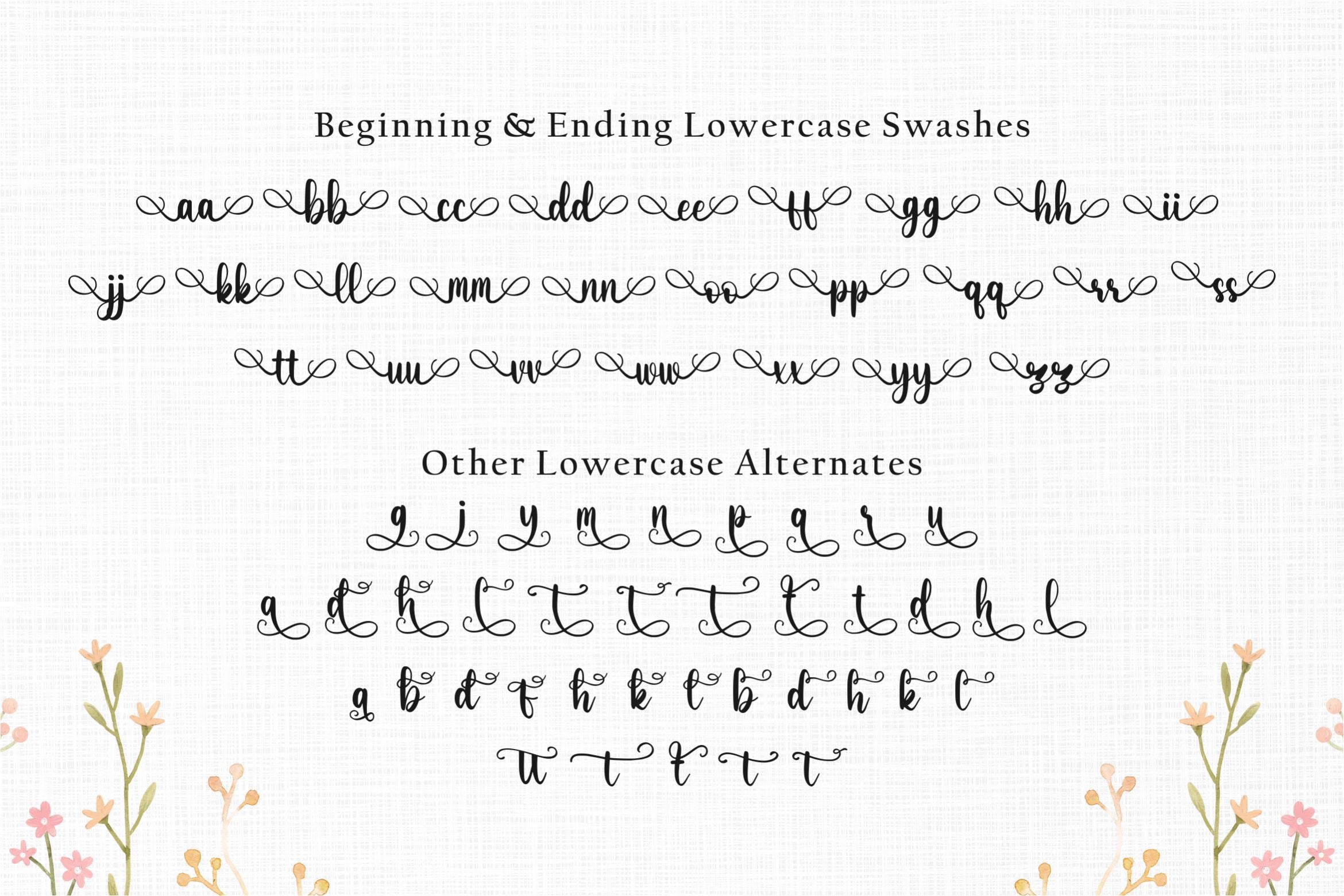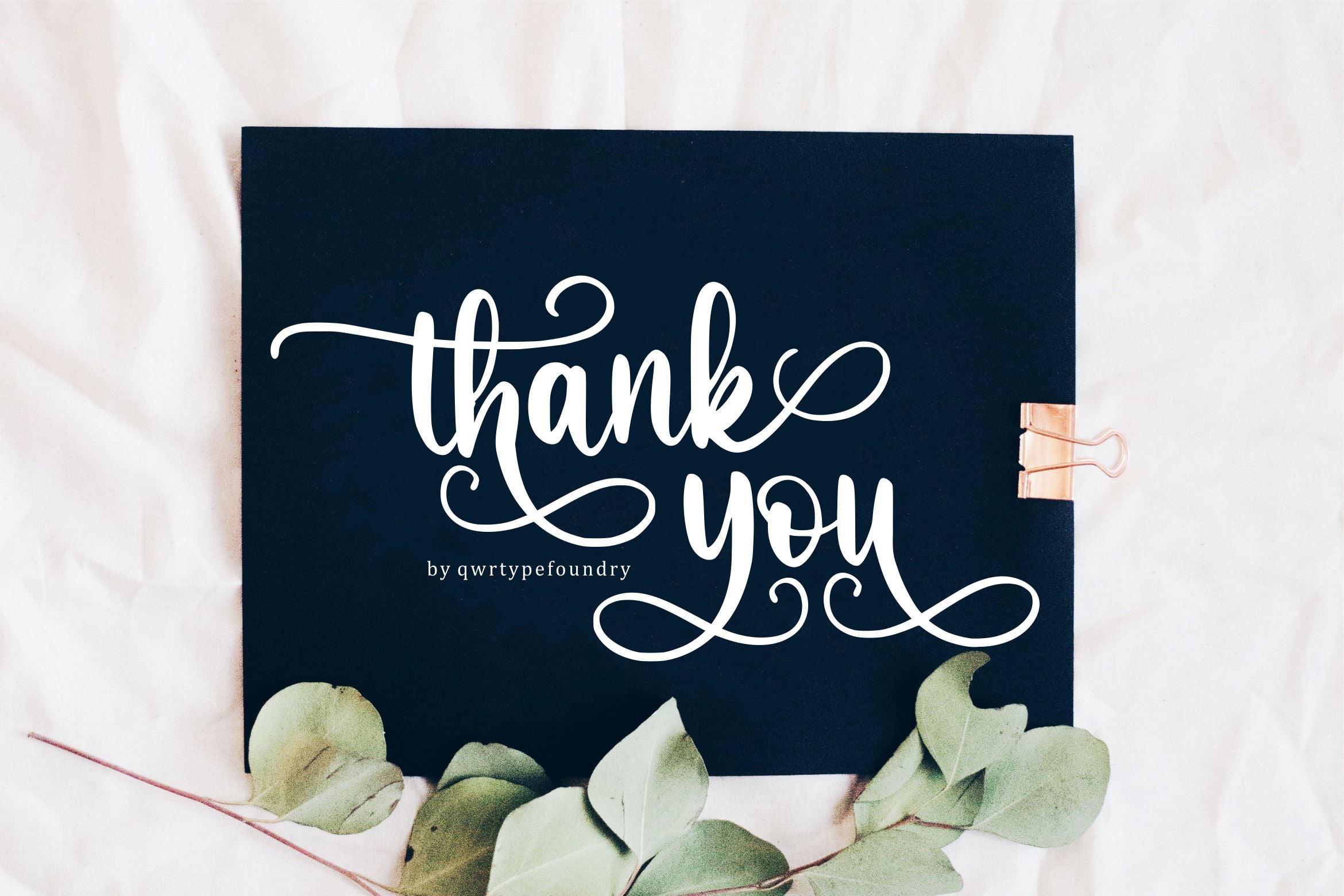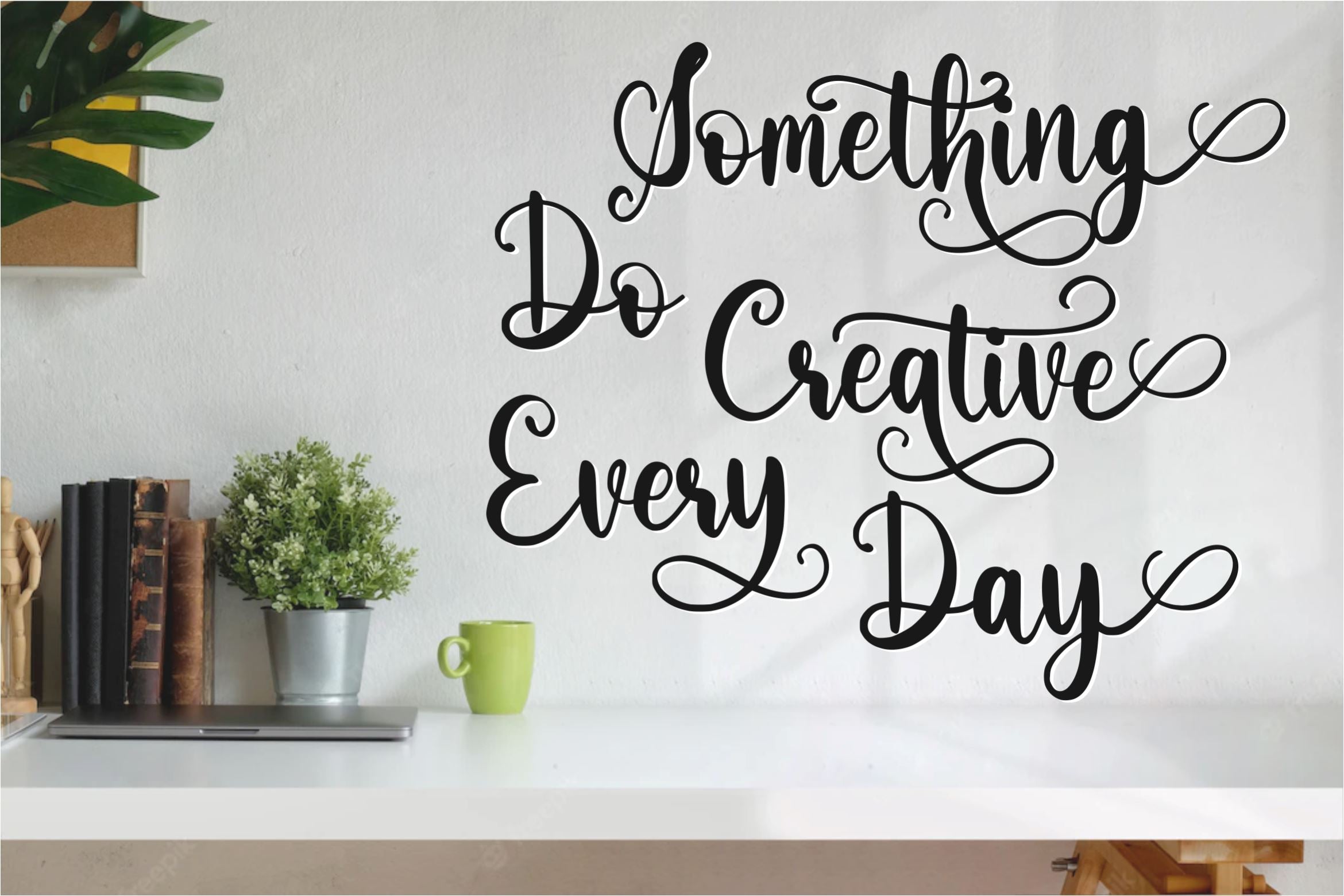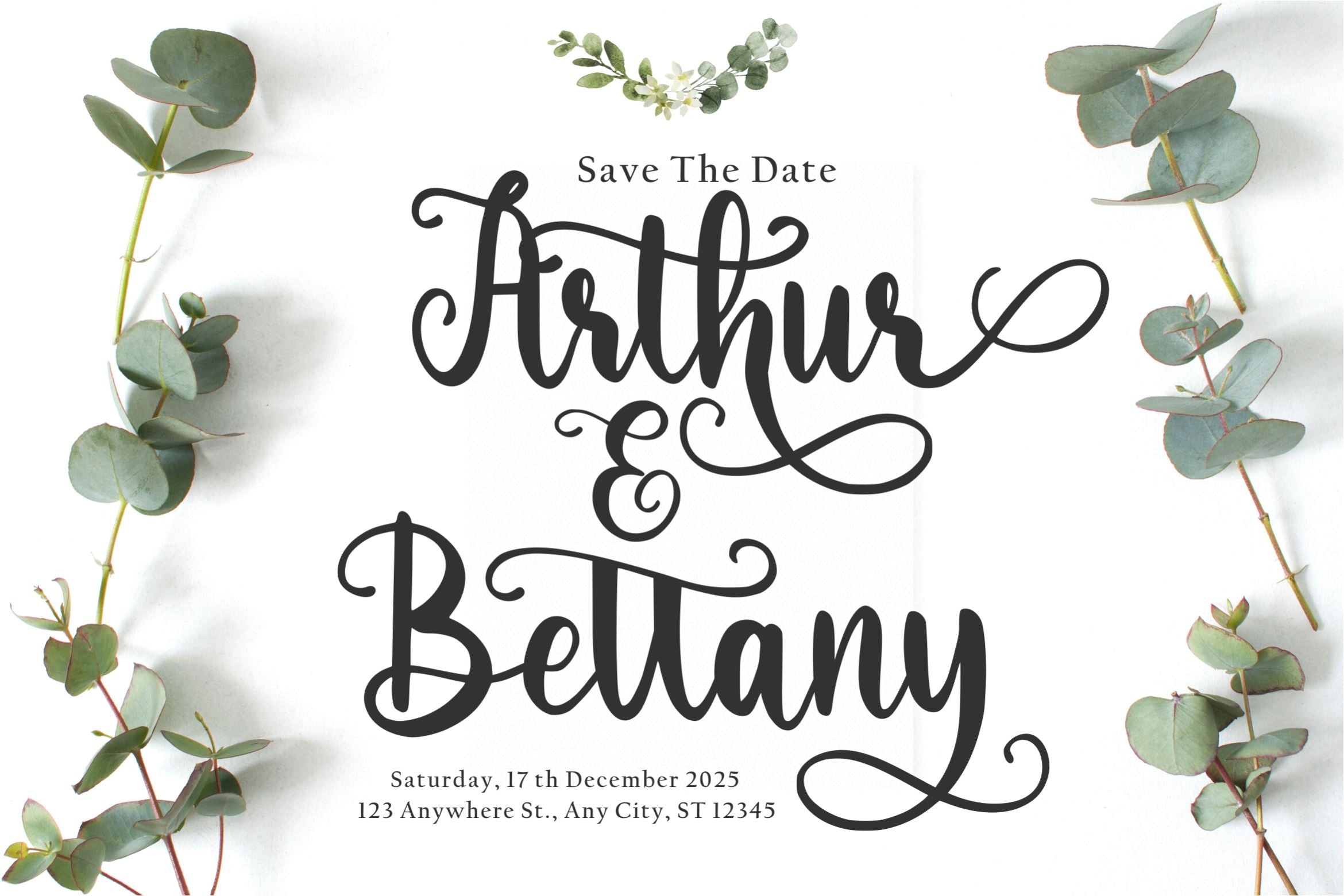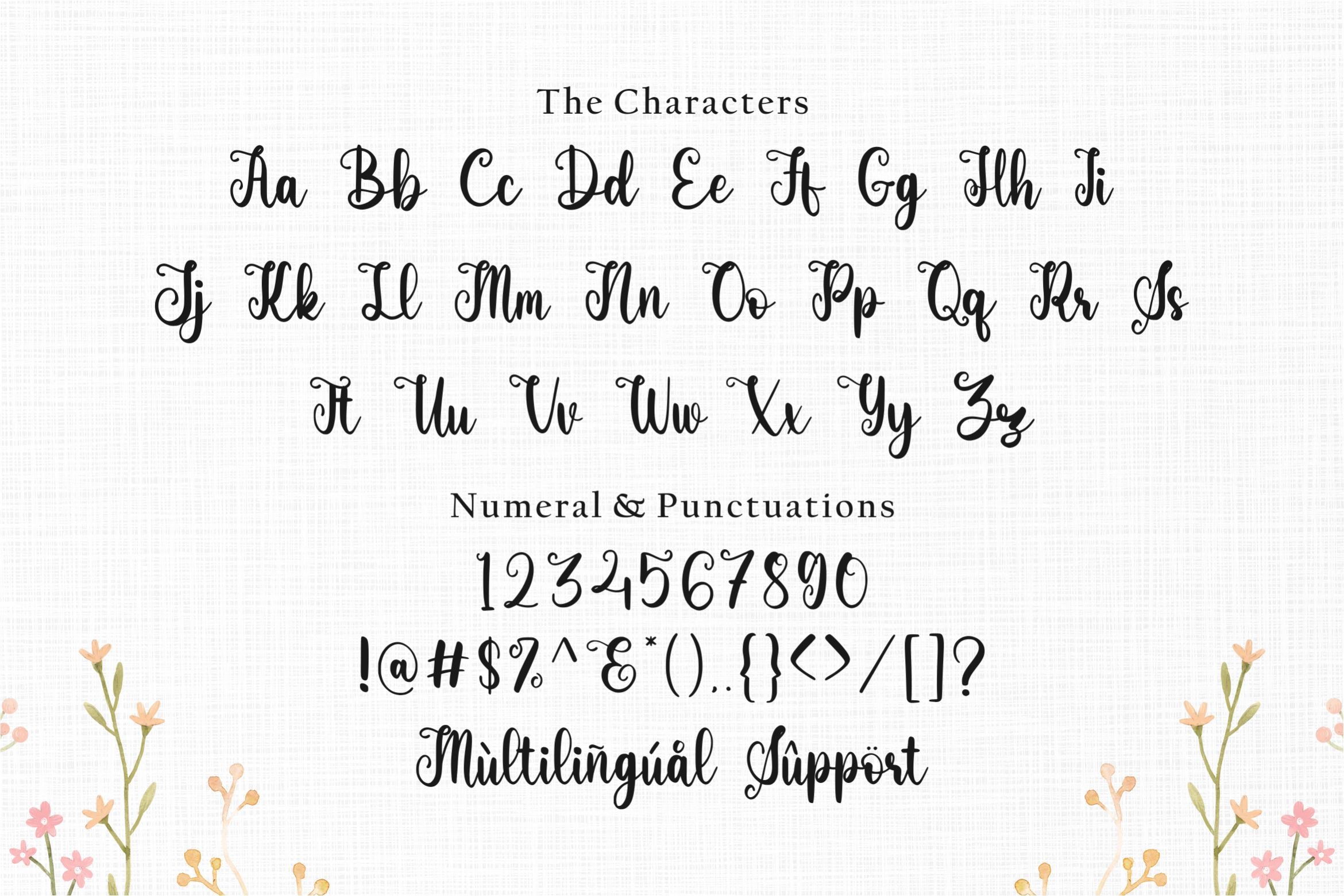
About Matilda Calrysta
Introducing by Qwrtype Proudly Present, Matilda Calrysta is a Swashes Calligraphy Font Matilda Calrysta is perfect for product packaging, branding project, megazine, social media, wedding, or just used to express words above the background. This font includes OTF, TTF & WOFF, Matilda Calrysta also multilingual support. Enjoy the font, feel free to comment or feedback, send me PM or email. Thank you!